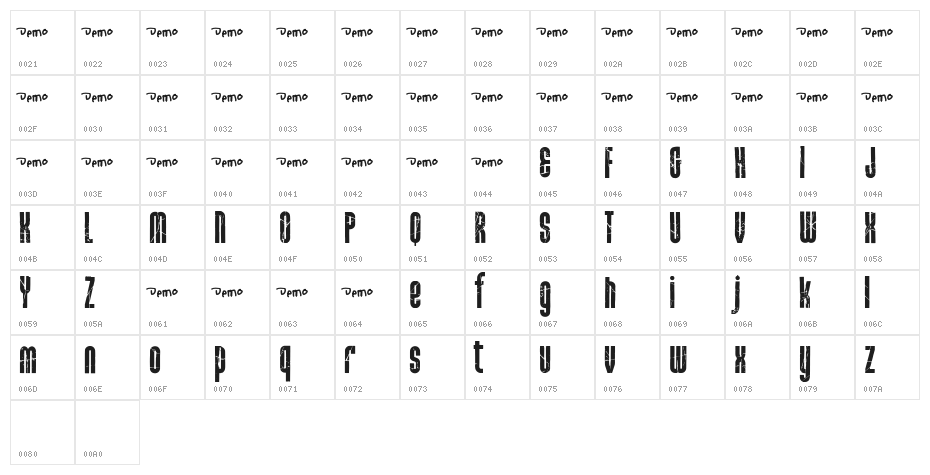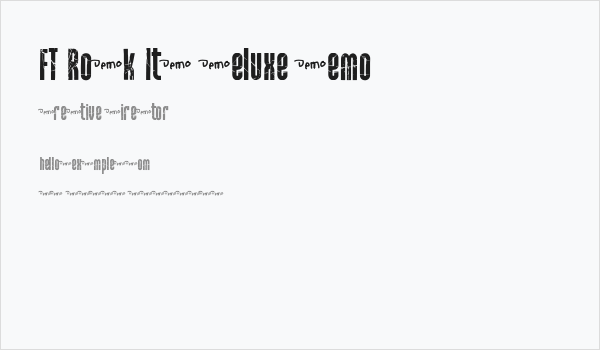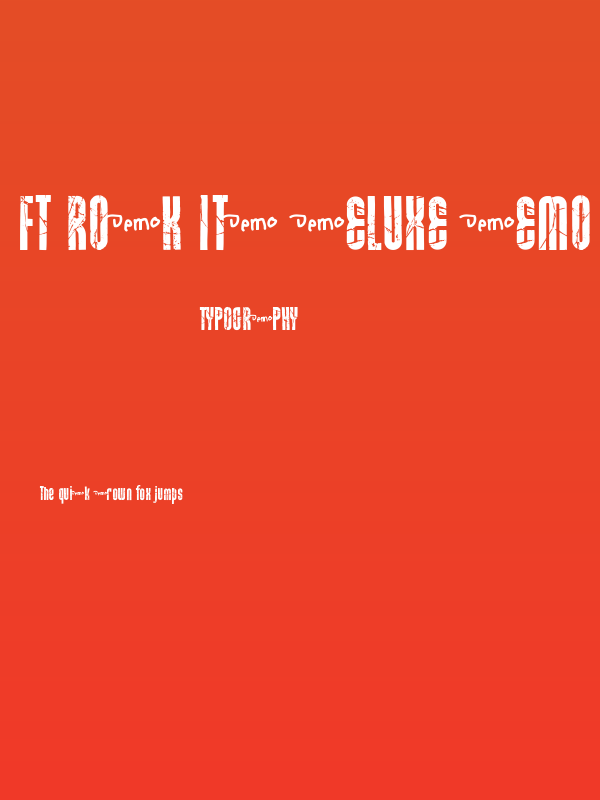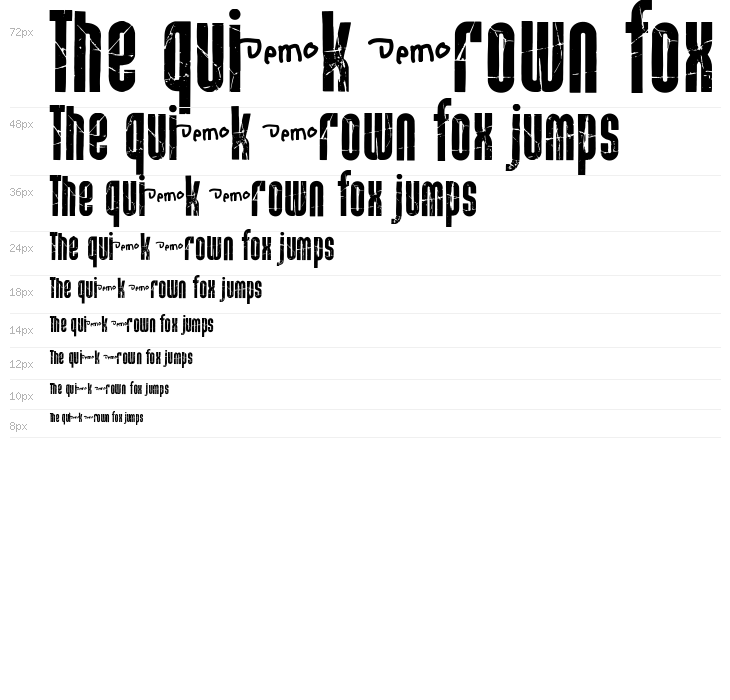
FT Rock It! Deluxe_Demo Font
FT Rock It! Deluxe_Demo Description
This font features a bold, distressed style with a grunge texture that gives it a rugged, edgy appearance. The uppercase letters are tall and narrow, with a strong vertical emphasis, while the lowercase letters maintain a consistent height and width, creating a cohesive look. The characters are slightly condensed, enhancing the boldness of the design. The font includes a full set of uppercase and lowercase letters, numbers, and a selection of special characters. Its unique, worn-out texture makes it ideal for projects that require a vintage or industrial feel.
| Overall Style | Vintage, Grunge |
| Proposed Projects | Ideal for album covers, posters, branding for edgy or vintage-themed products, and any design requiring a bold statement. |